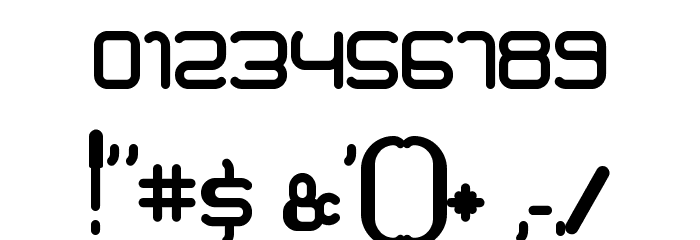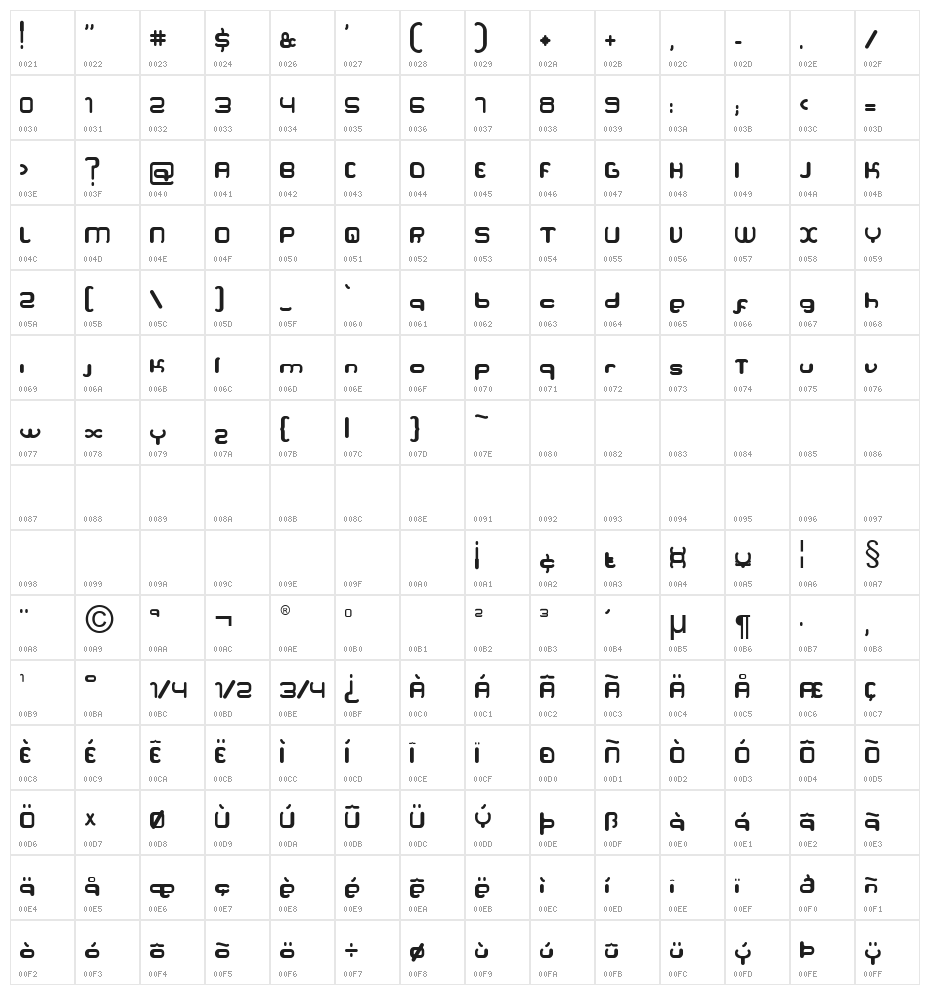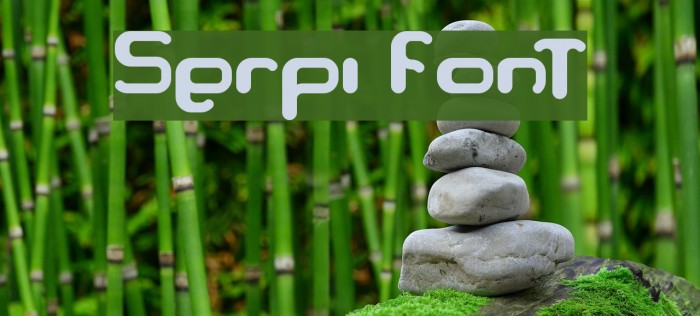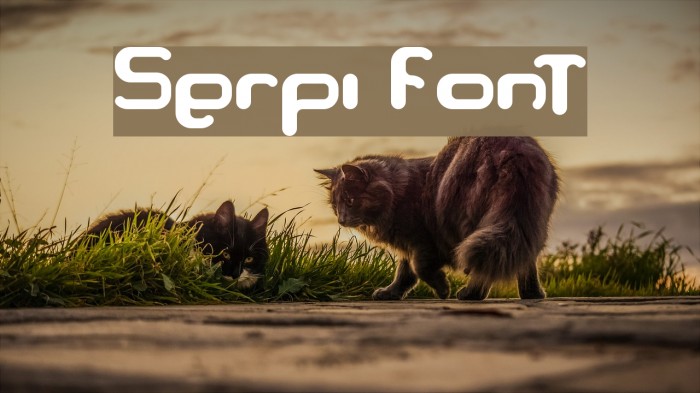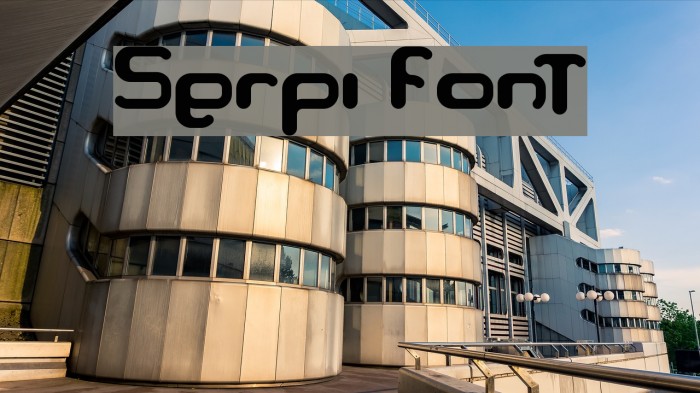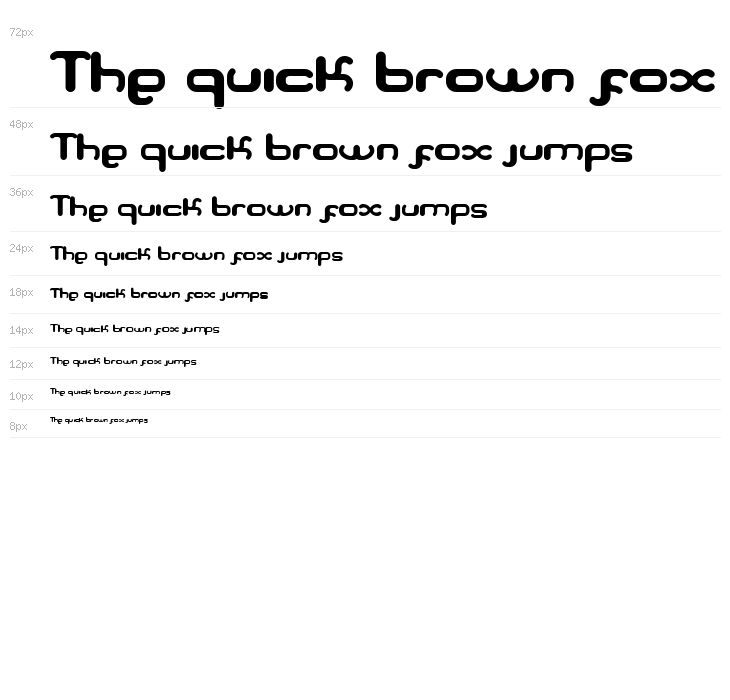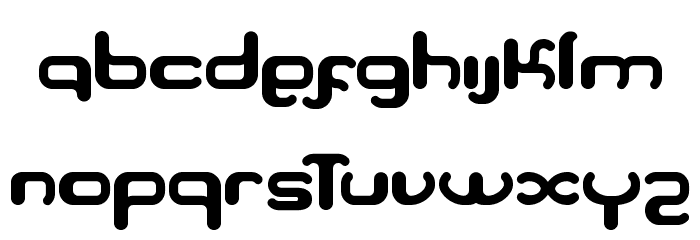
Serpi Font
Serpi Description
This font features a unique and modern design with rounded edges and a playful, futuristic aesthetic. The characters are bold and have a consistent stroke width, giving them a strong presence. The uppercase and lowercase letters maintain a uniform style, with the lowercase letters slightly more compact. The numerals are clear and easy to read, matching the overall style of the alphabet. Special characters are creatively designed, adding to the font's distinctive look. This font's rounded and smooth appearance makes it suitable for projects that require a modern and approachable feel.
| Proposed Projects | Ideal for branding, advertising, digital media, and creative projects that require a modern and approachable aesthetic. |